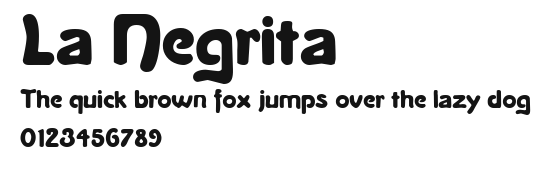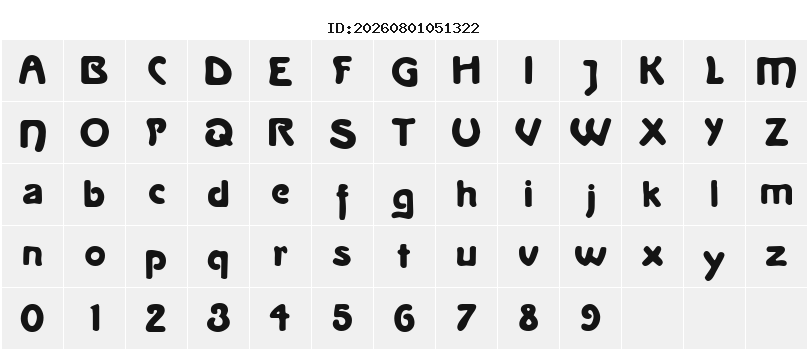
• Font Name: La Negrita
La Negrita.ttf is a modern, elegant sans-serif font designed for ultimate readability and visual harmony. Perfect for branding, headlines, web design, and print materials.